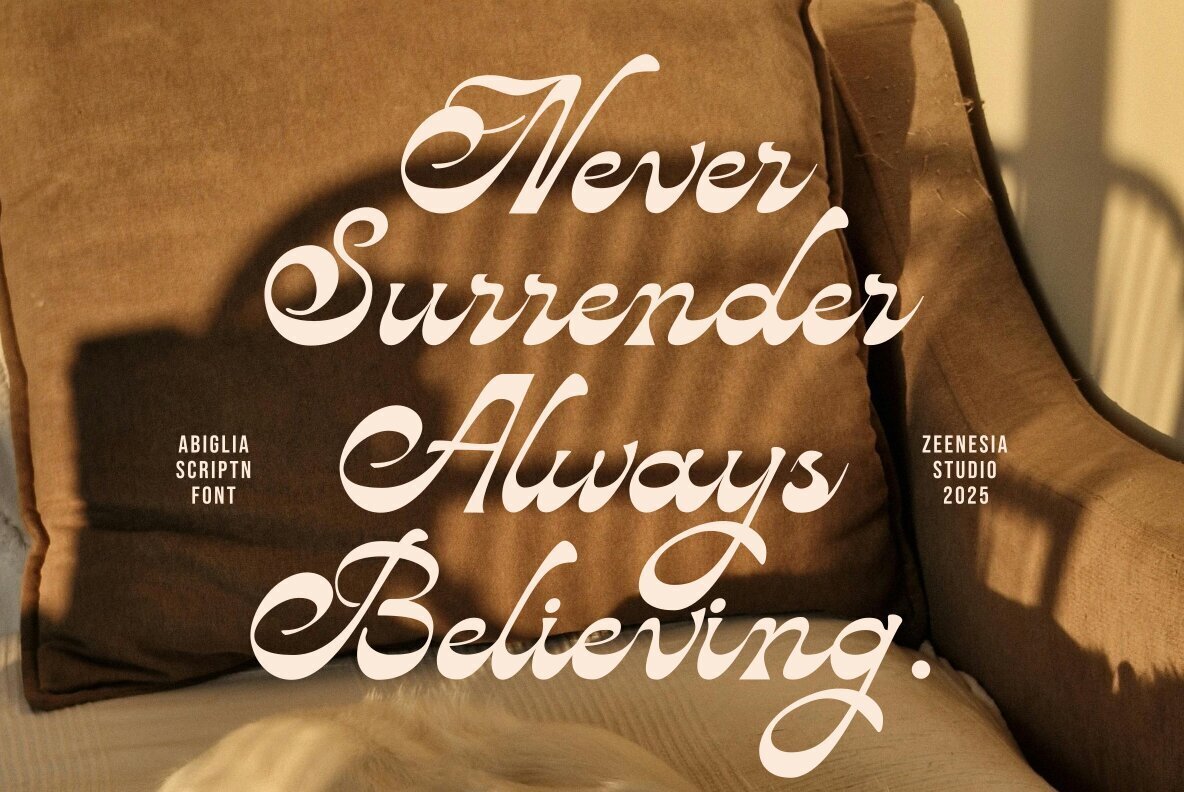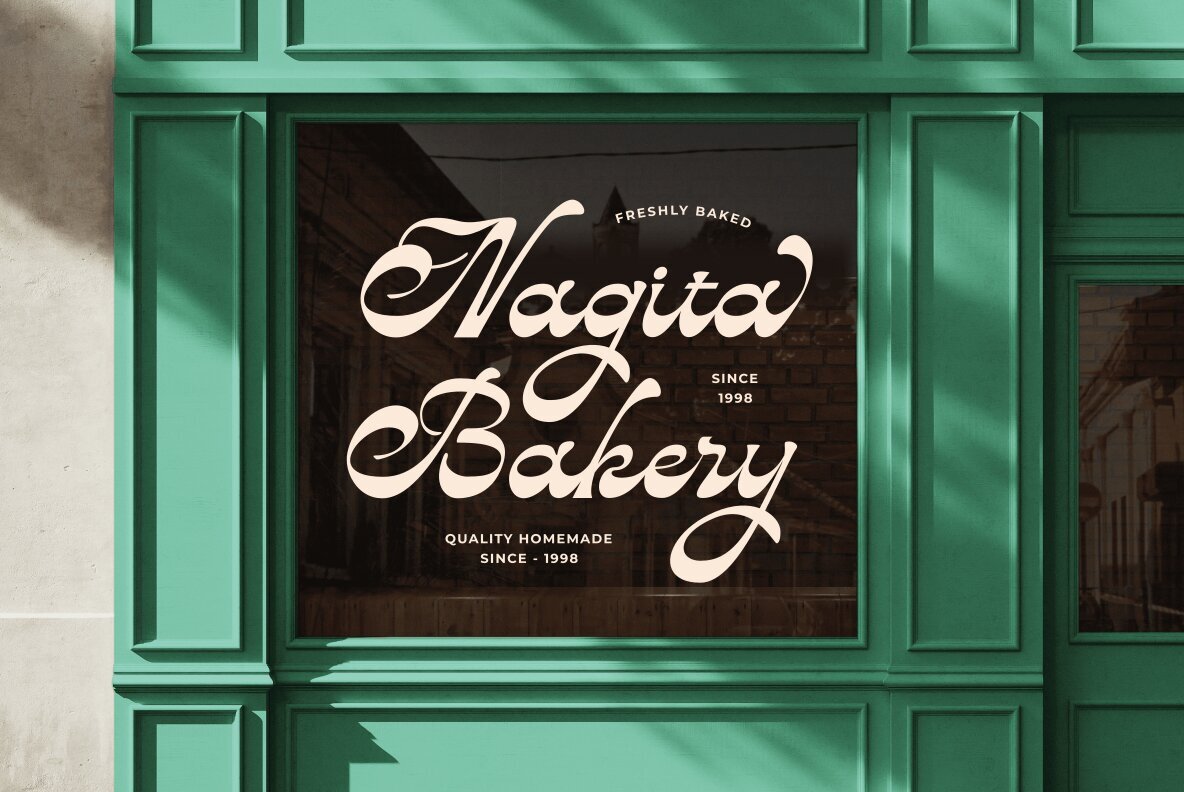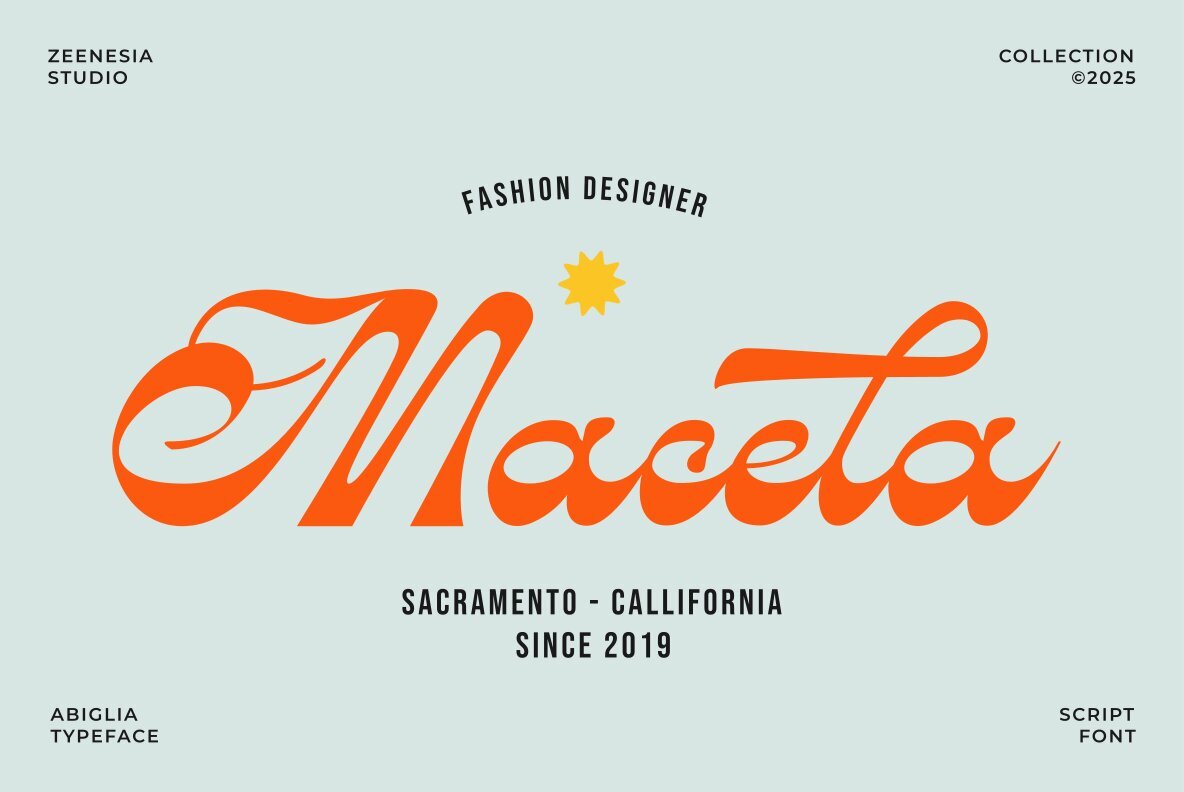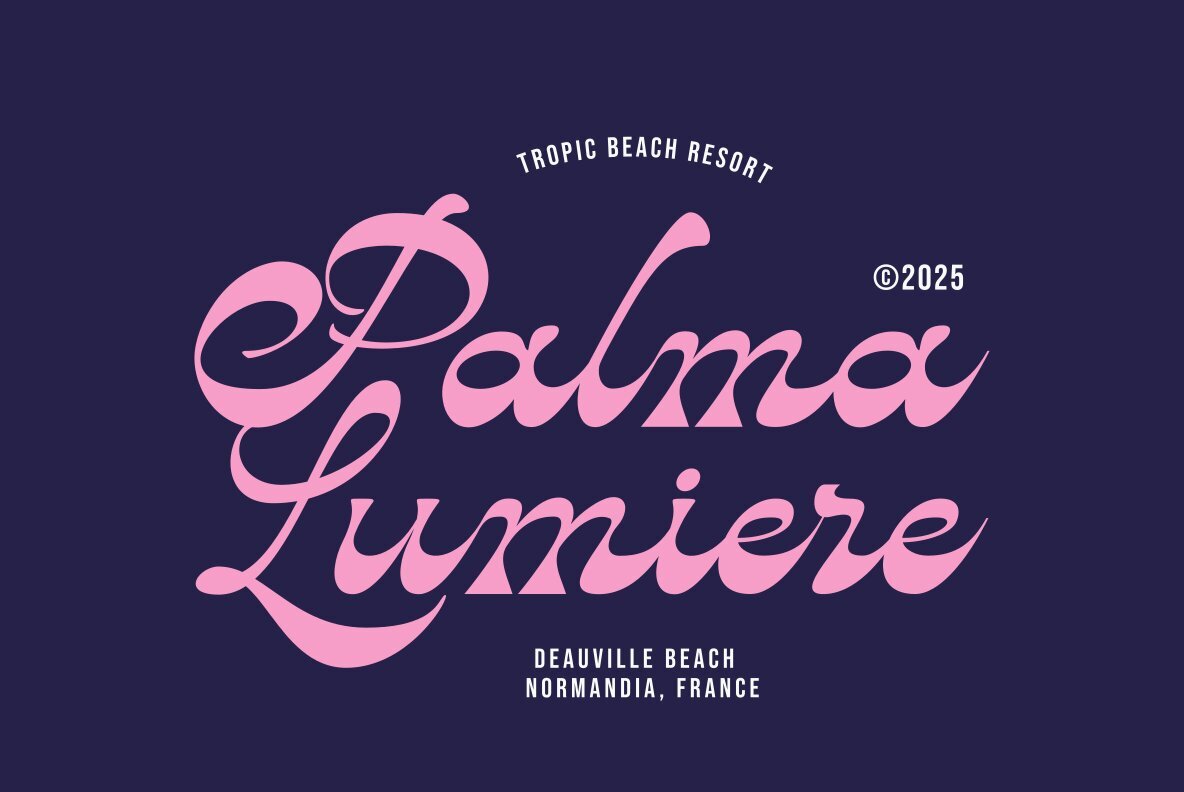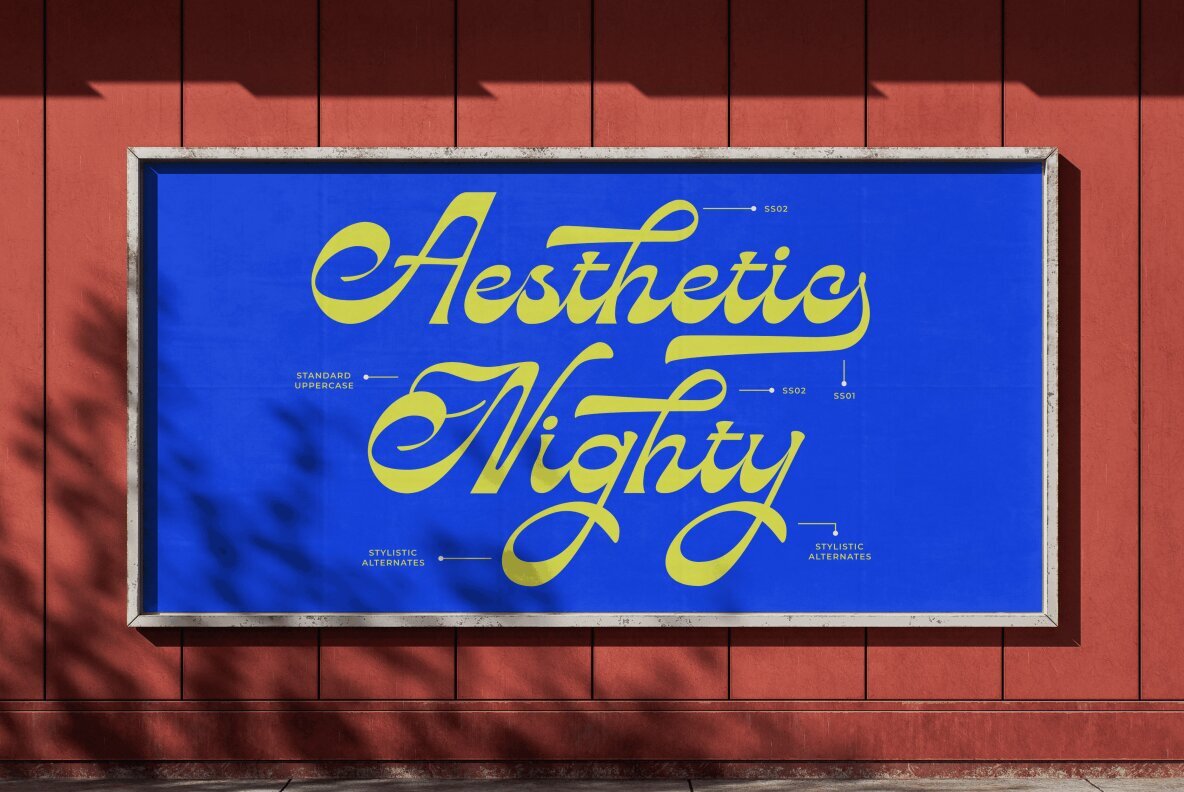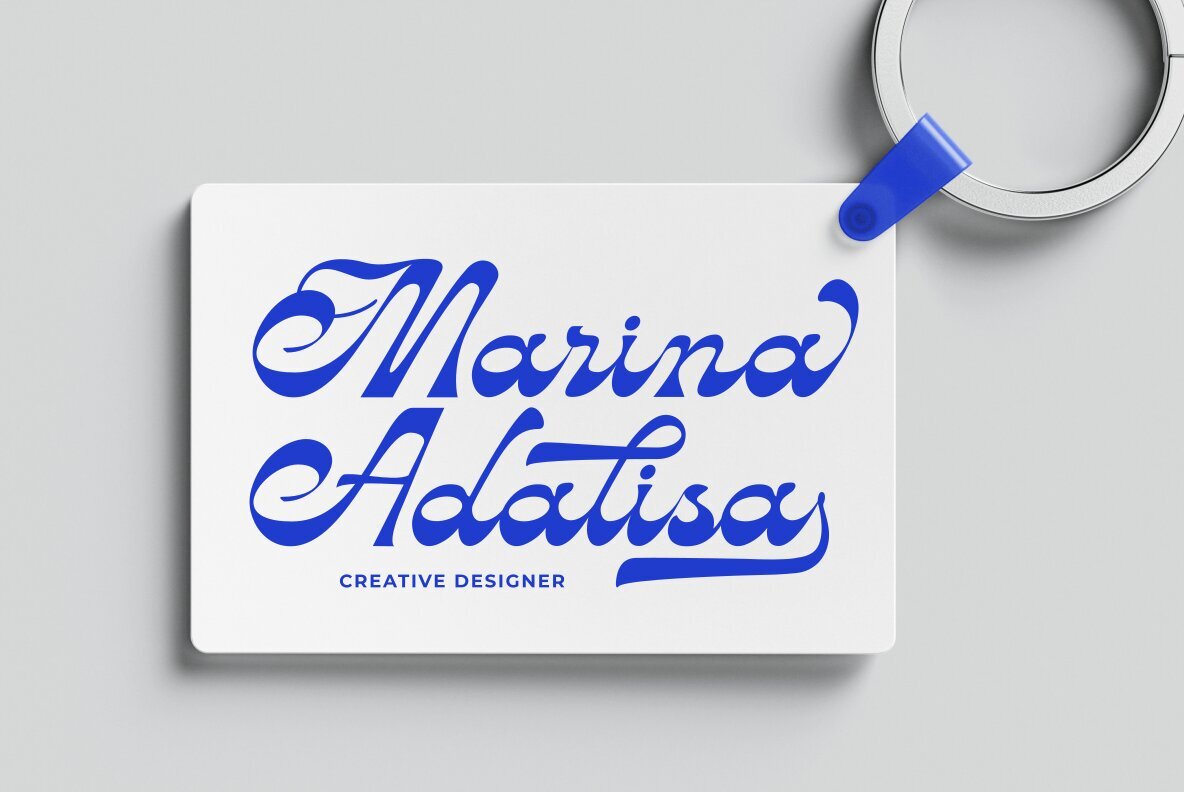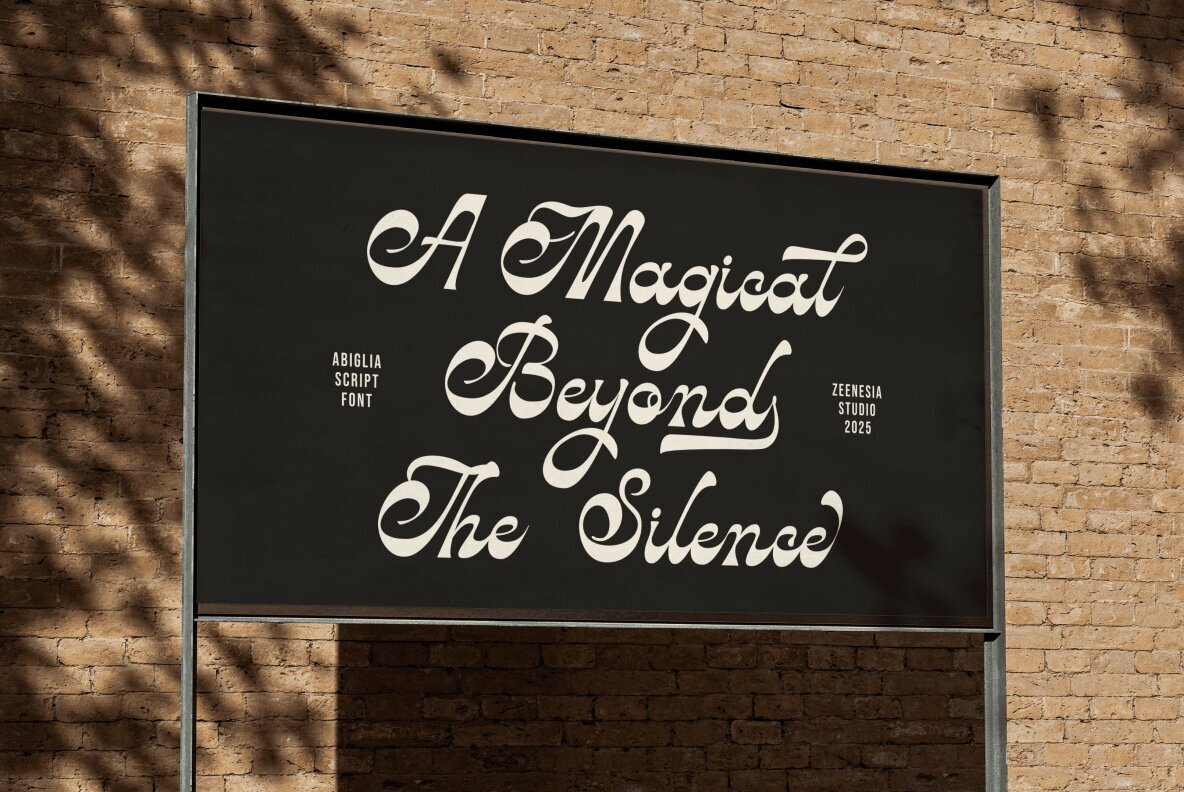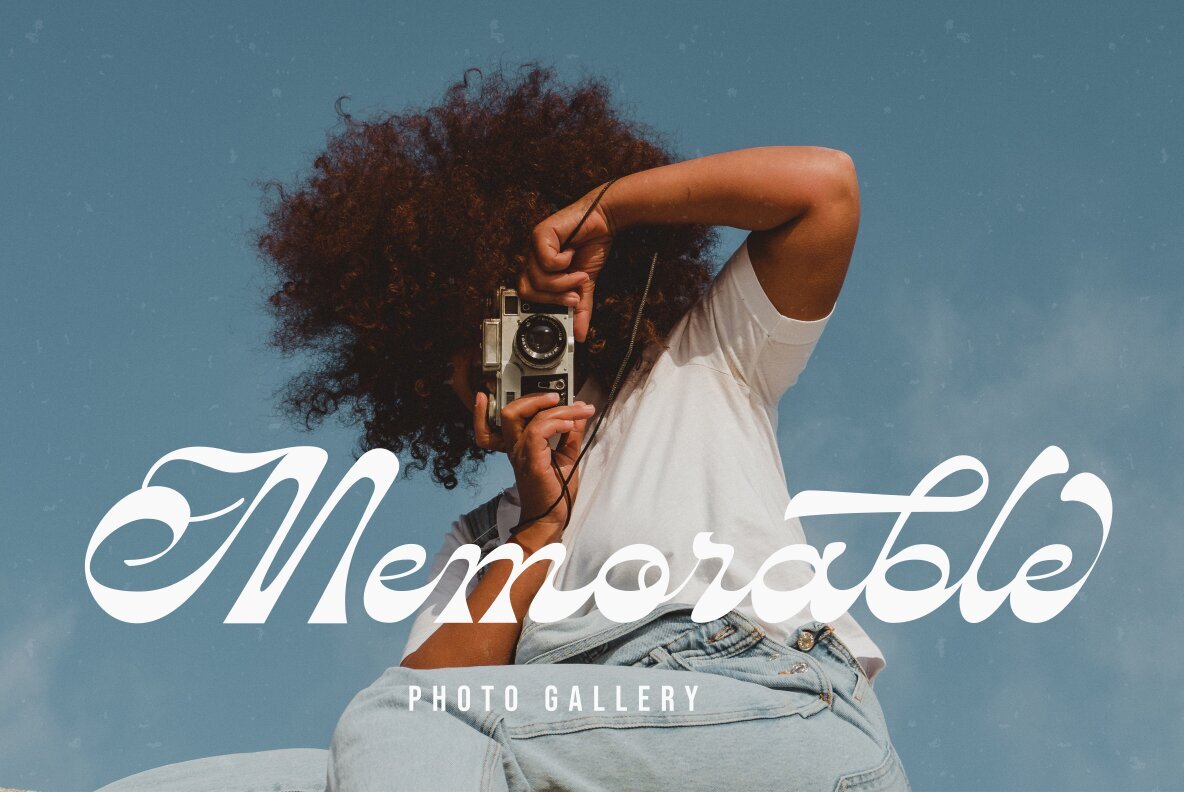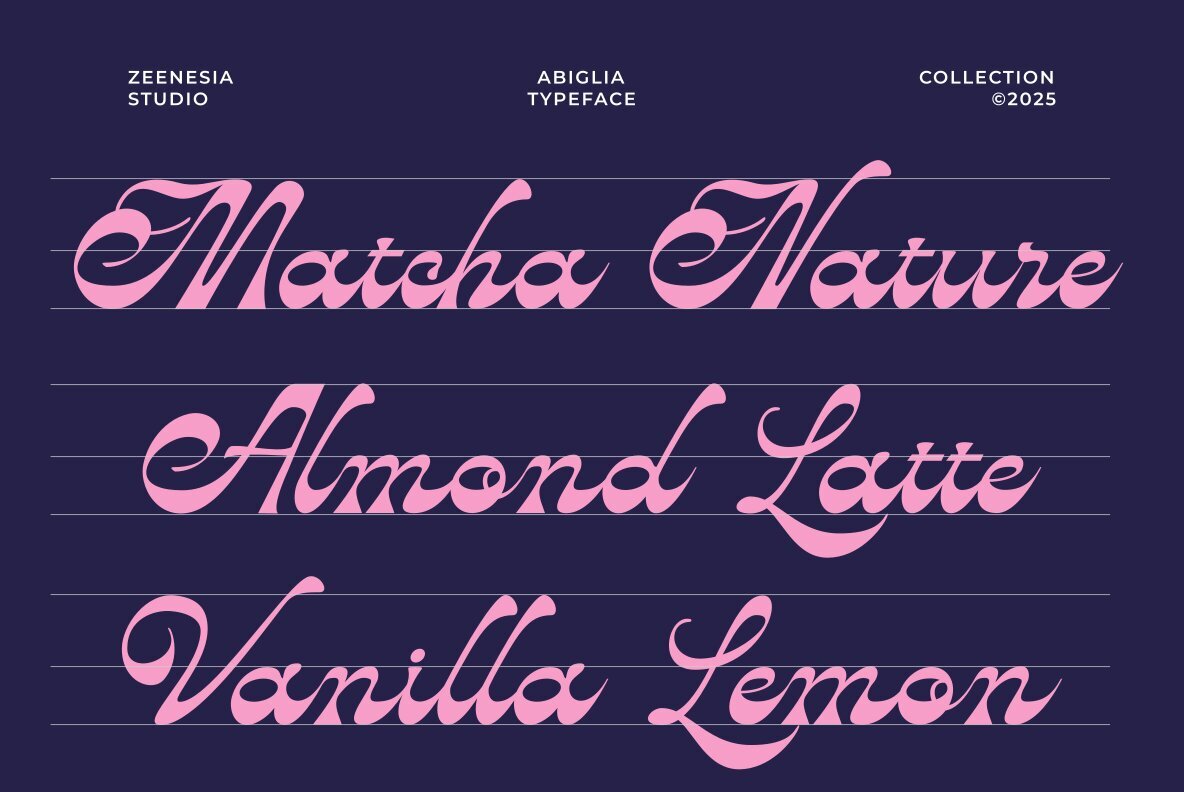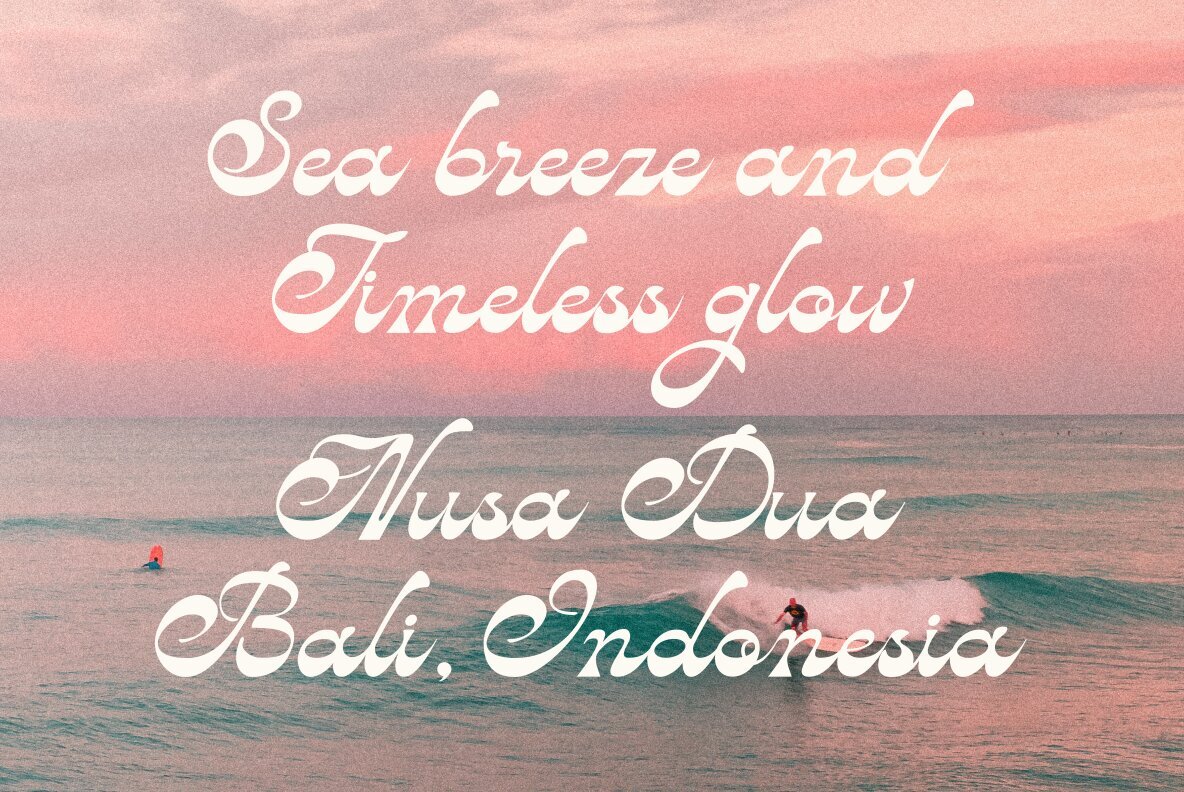
Abiglia Font
Abiglia Regular
The Abiglia typeface beautifully marries elegance with whimsy, offering a hand-drawn script font that thrives in modern design contexts. With its flowing curves and assertive strokes, Abiglia mimics the art of handcrafted lettering while maintaining a contemporary aesthetic. Equipped with stylistic alternates, this font offers the flexibility to experiment with varied letterforms, rendering designs both expressive and distinctive. Its versatility makes it ideal for projects ranging from branding to wedding invitations, logos, packaging, quotes, posters, and social media graphics. Imbue your creative endeavors with a sweet, stylish, and memorable aura by incorporating the Abiglia typeface. Features:Abiglia: A Playful Hand-Drawn Script Font